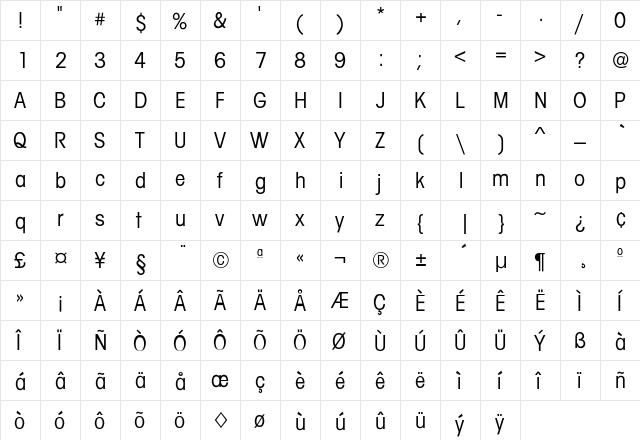
Aubade Condensed Regular
Design Context for Aubade Condensed Typeface
Aubade Condensed takes a measured approach to typography — its balanced proportions and neutral character make it a reliable workhorse for both digital and print work. The condensed width makes it efficient for tight spaces without sacrificing legibility.